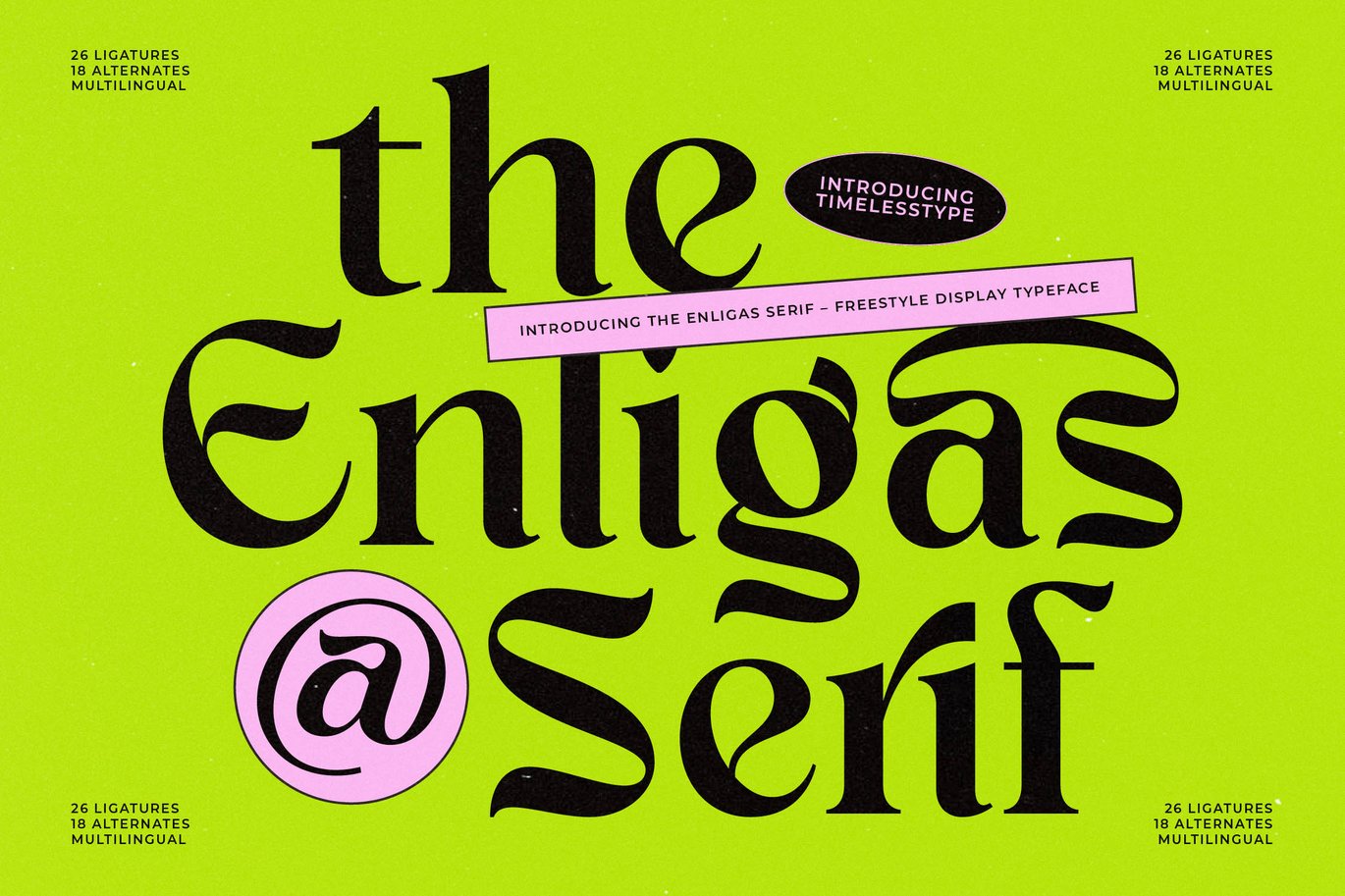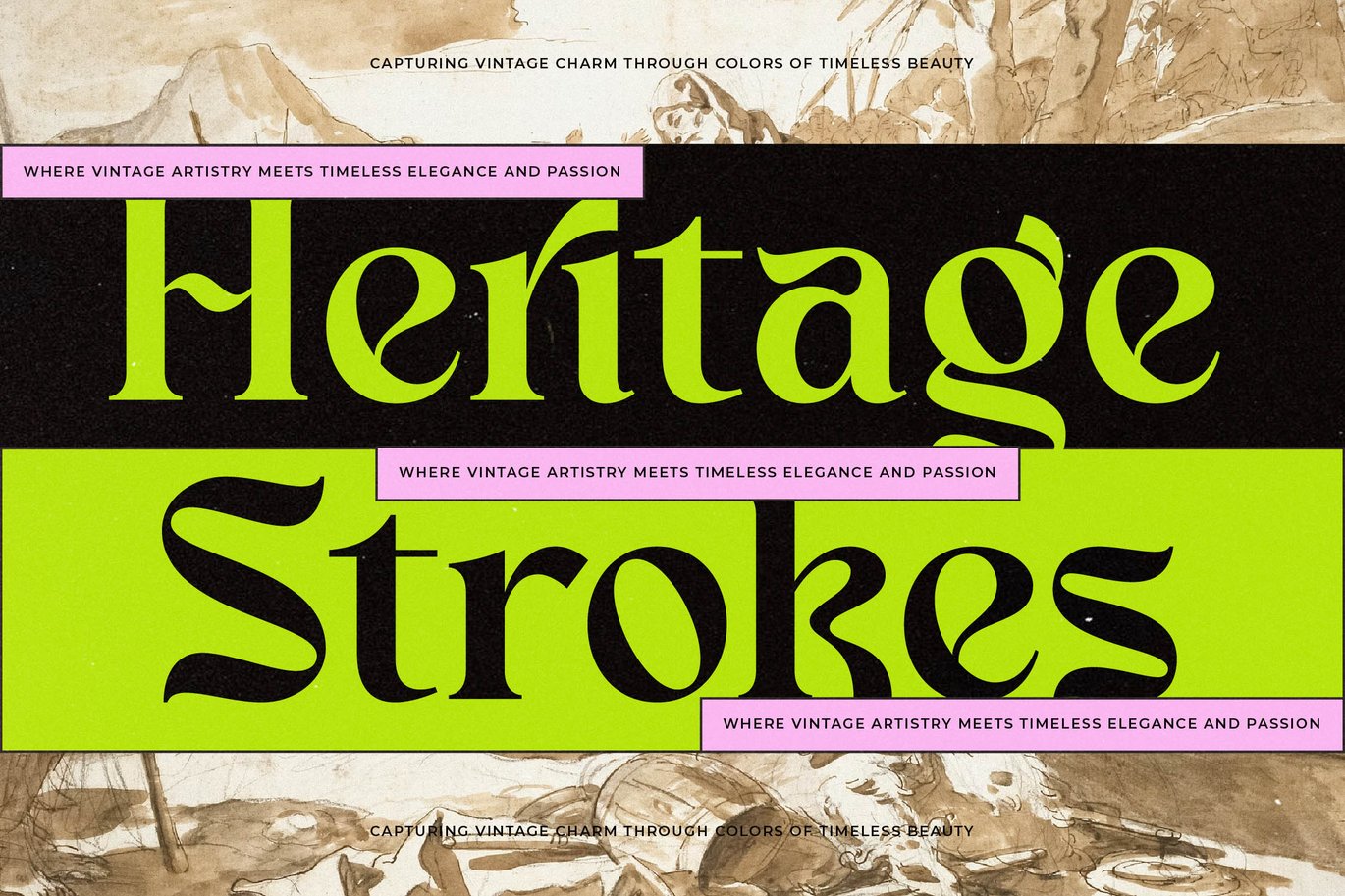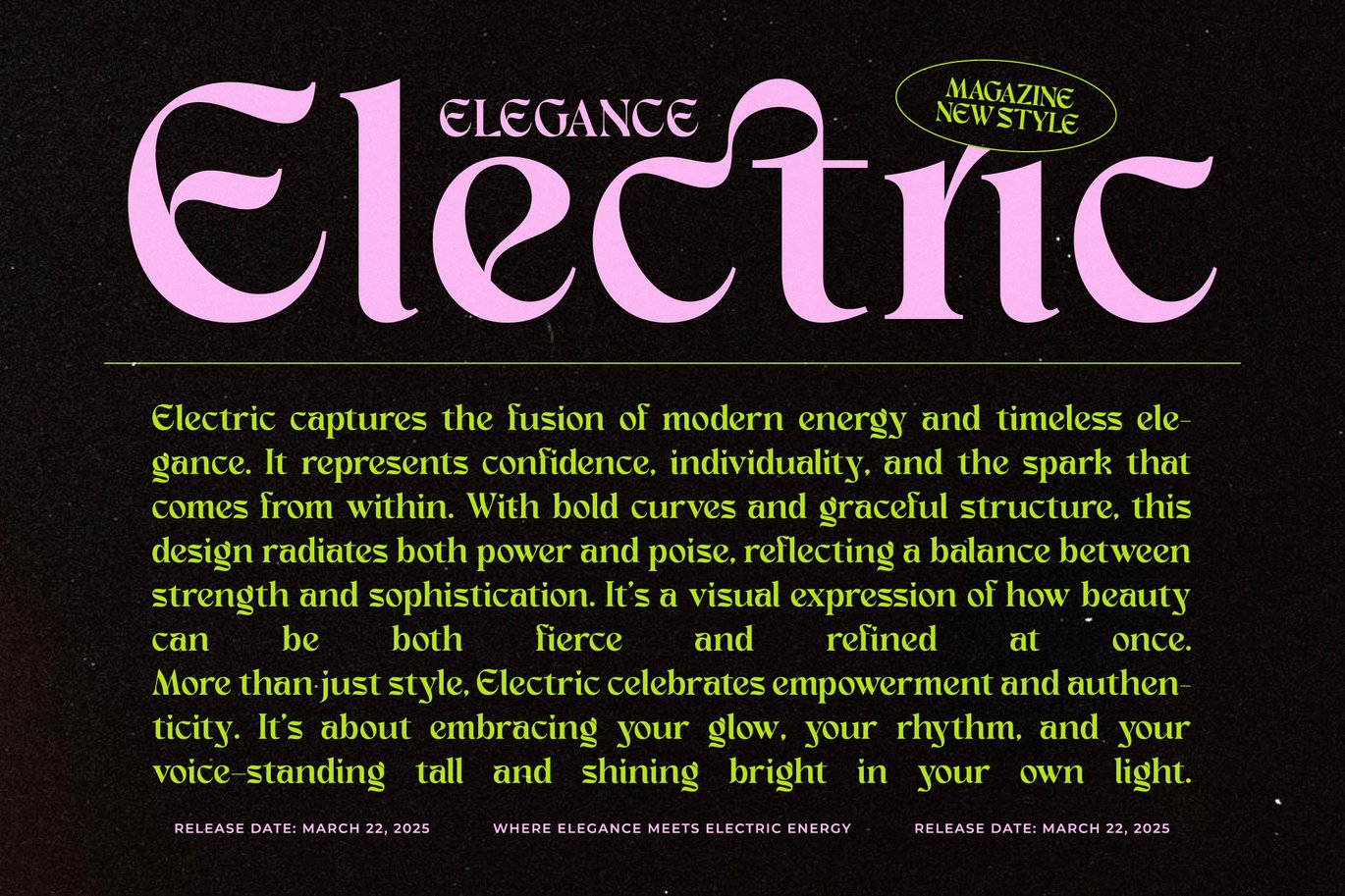
Enligas – Freestyle Display Typeface Font
Enligas – Freestyle Display Typeface Font is a versatile typeface ideal for various projects, including N/A, logos, branding, posters, blog headers, advertisements. The free version includes a full set of uppercase and lowercase letters, available in TTF, OTF, WOFF, WOFF2 format.